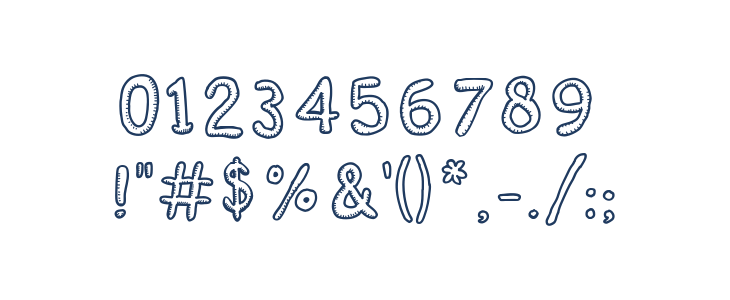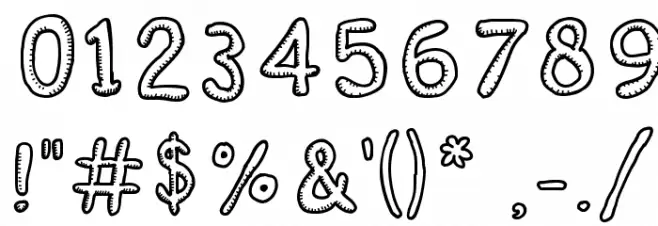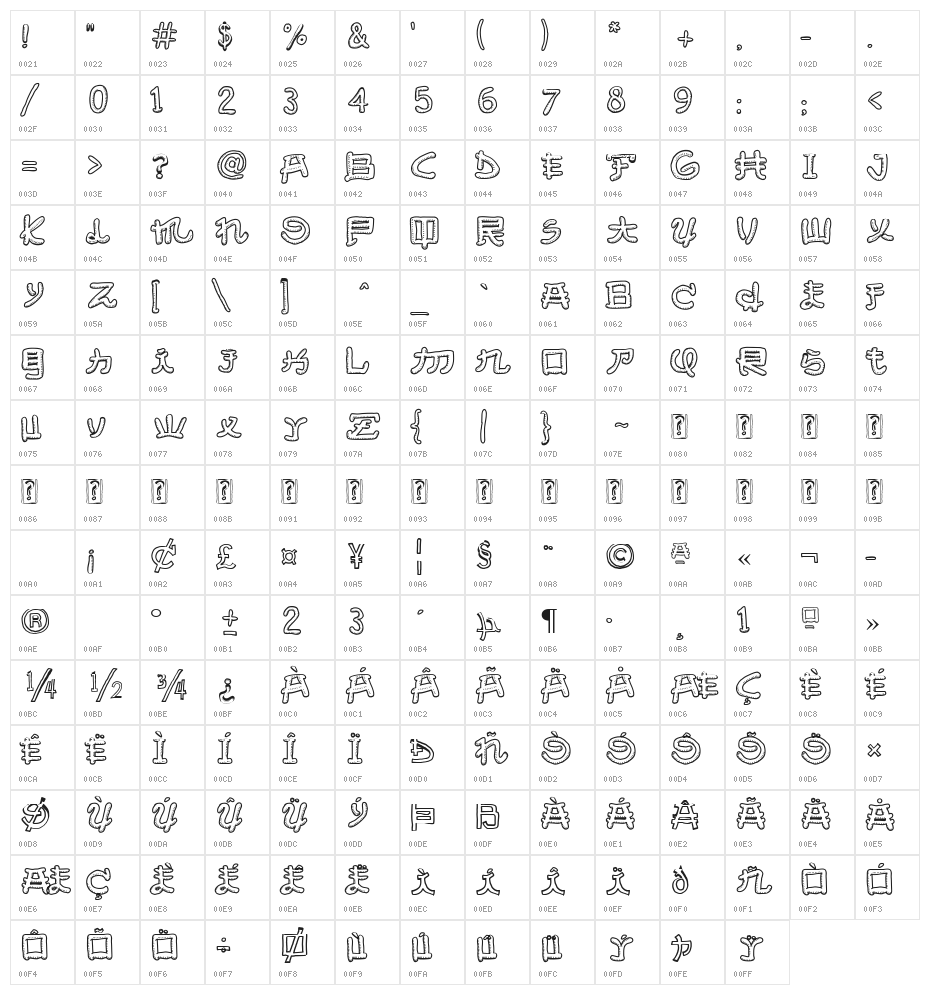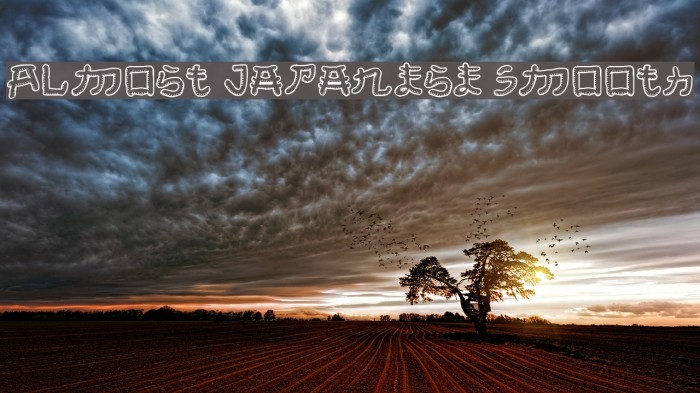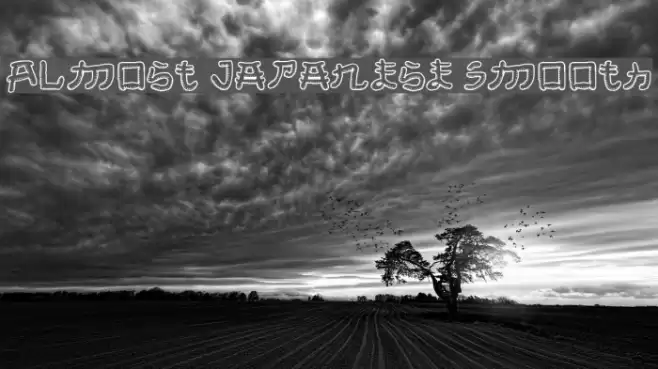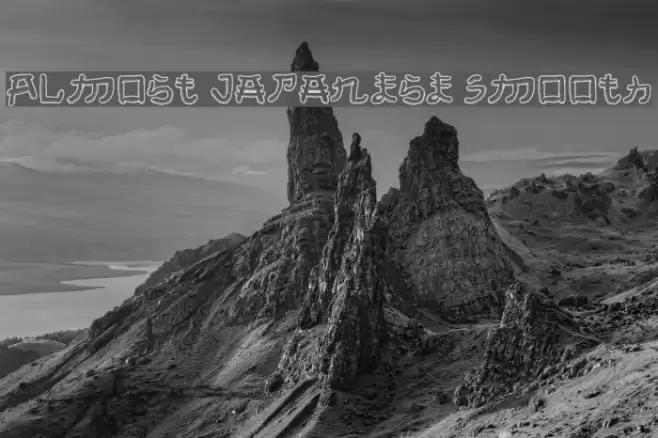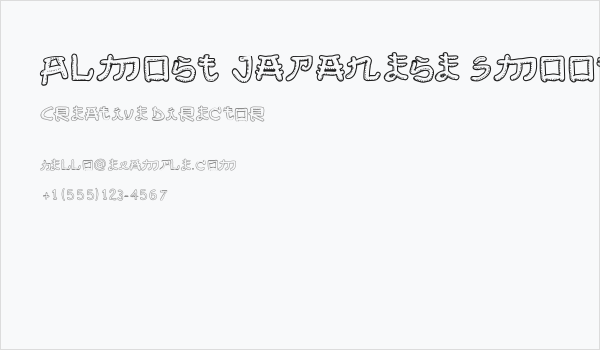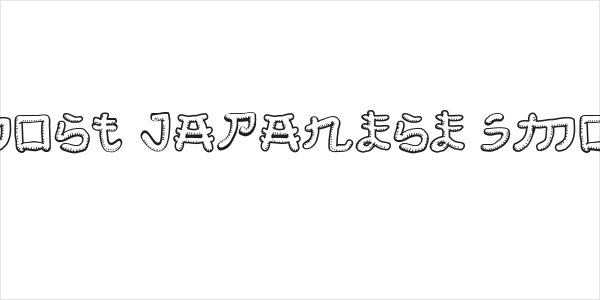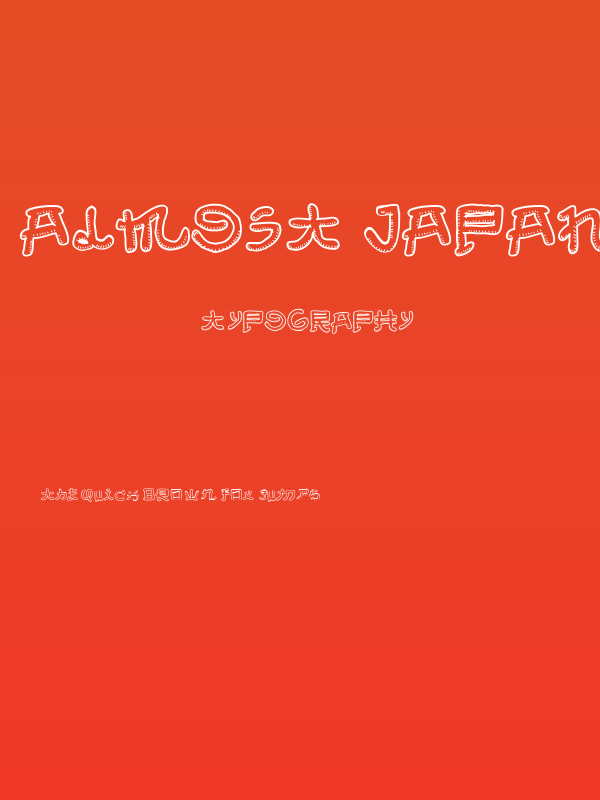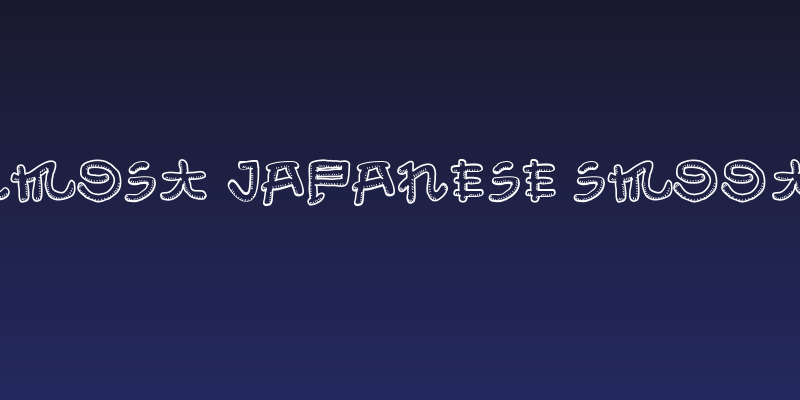
Almost Japanese Smooth Font
Almost Japanese Smooth Description
This font features a playful and decorative style, characterized by its bold, bubble-like letters with a smooth, rounded appearance. Each character is outlined with a thick black border, giving it a cartoonish and whimsical feel. The interior of the letters is filled with a subtle texture that adds depth and interest. The font includes both uppercase and lowercase letters, numbers, and a variety of special characters. Its unique design is reminiscent of hand-drawn or doodle art, making it stand out in any creative project.
| Proposed Projects | Ideal for children's books, comic strips, playful branding, posters, and greeting cards. |